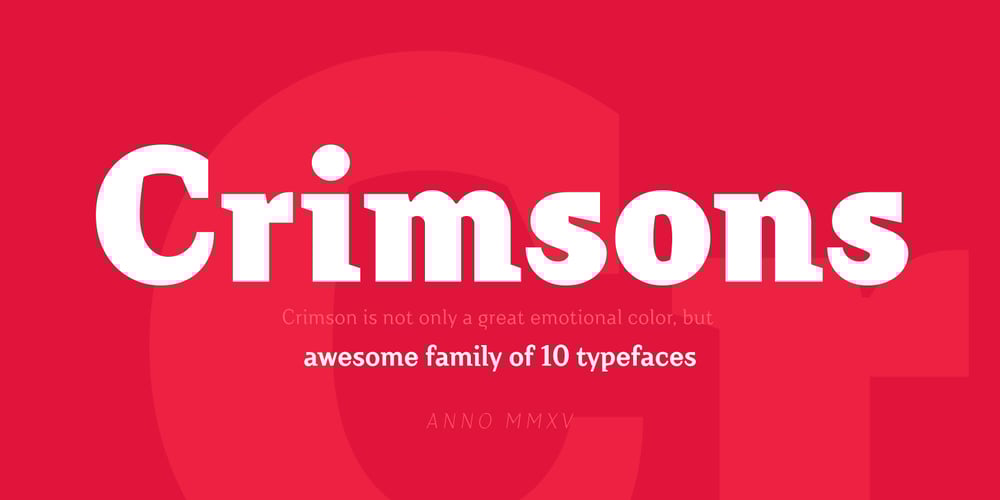
Crimsons Font Family was designed by TypeType Team and published by Piñata. Crimsons contains 10 styles and family package options. Fontfamily Crimsons unique and very unusual. It combines modern grotesque, medieval motifs and serif proportions. These fonts will be a useful part of a collection designers. Crimsons is ideal for short and emotional inscriptions. Titles, names, logotypes – this is his element.